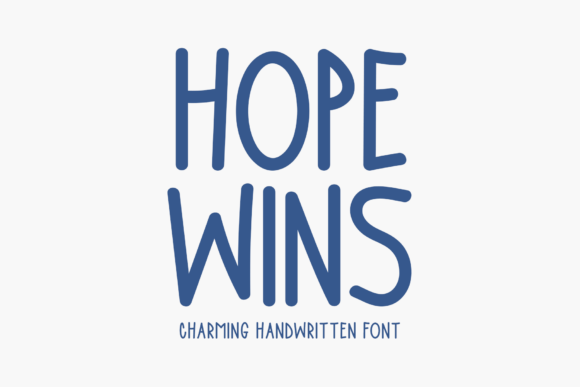
The Power of Typography: Finding Inspiration in the Hope Wins Font
Have you ever sat down with a blank canvas, a blank page, or a blank screen, and suddenly felt an overwhelming urge to create something beautiful? Maybe it’s a heartfelt letter to a loved one, a poster for a charity event, or a social media post to spread positivity. Whatever it is, the spark of creativity is what drives us to bring our ideas to life. And for designers, the right font can be the catalyst that sets the tone for an entire project.
Enter the Hope Wins Font, a charming handwritten font designed to infuse your creations with warmth and elegance. Its gentle curves and flowing style make it perfect for a variety of projects, from stationery to branding and digital media. With the Hope Wins Font, you can add a touch of beauty and positivity to your work, speaking directly to the hearts of your audience.
Hope Wins Font Key Features
- Font Family: Hope Wins Font is a unique, hand-drawn sans-serif font family designed to convey optimism and positivity.
- Unique Characteristics: Hope Wins Font features a distinctive, hand-drawn aesthetic with subtle imperfections, giving it a friendly and approachable feel.
Hope Wins Font Review
I recently had the chance to work with the Hope Wins Font, and I must say it’s a lovely addition to any design project. Here’s what I think:
- The font’s most striking feature is its bold and uplifting personality, making it perfect for designs centered around positivity and hope.
- The font’s open and airy feel makes it a great choice for titles, headings, and other display text where you want to grab attention.
- The font’s versatility shines through in its multiple weight options, allowing you to easily switch between bold, regular, and light styles.
- The font may not be the best choice for large blocks of text, as its open feel can make it difficult to read in smaller sizes.
- The font’s lack of italics and other stylistic variations may limit its use in certain design contexts.
Overall, I think the Hope Wins Font is a great addition to any designer’s toolkit, particularly for projects centered around hope, positivity, and inspiration. While it may have some limitations, its unique personality and versatility make it a valuable asset for any design project.
Getting the Most Out of Hope Wins Font
To get the most out of Hope Wins Font, use it for inspirational quotes, motivational messages, or to add a touch of optimism to your designs. You can also pair it with other fonts to create a unique and eye-catching visual effect.
Hope Wins Font is commonly used for:
– Inspirational quotes and motivational messages
– Social media posts and captions
– Event invitations and promotional materials
– Personalized gifts and cards
Q: What is the recommended font size for optimal readability with the Hope Wins Font?
The recommended font size for optimal readability with the Hope Wins Font is between 12pt and 24pt. However, this may vary depending on the specific use case, design context, and target audience.